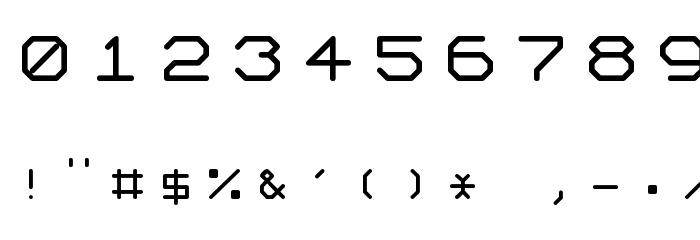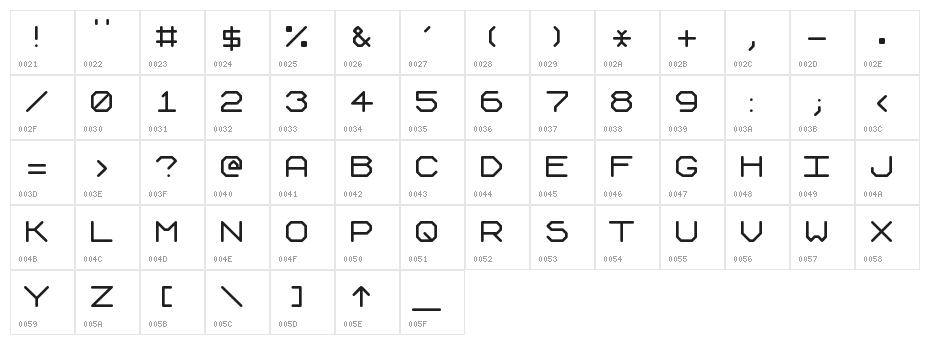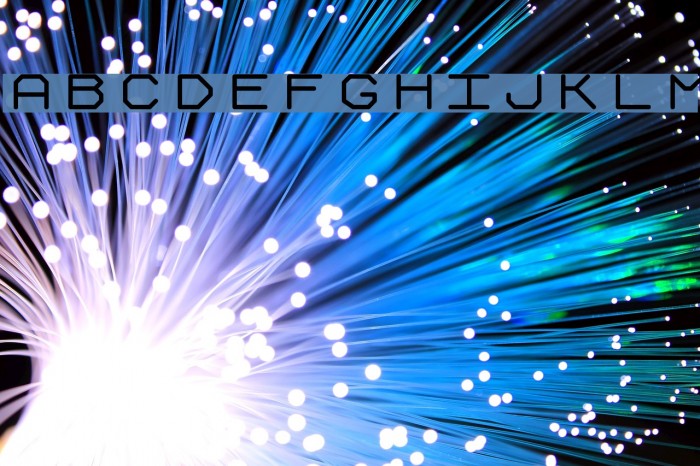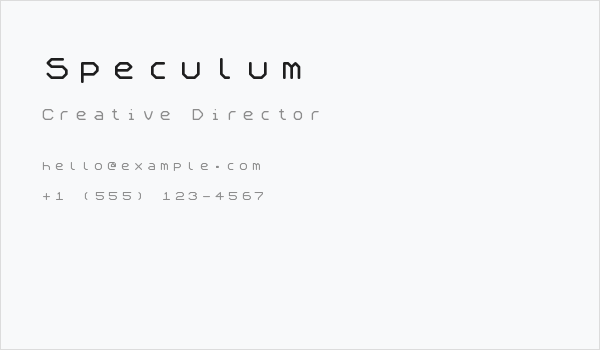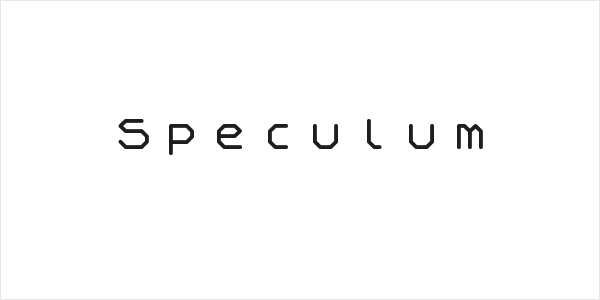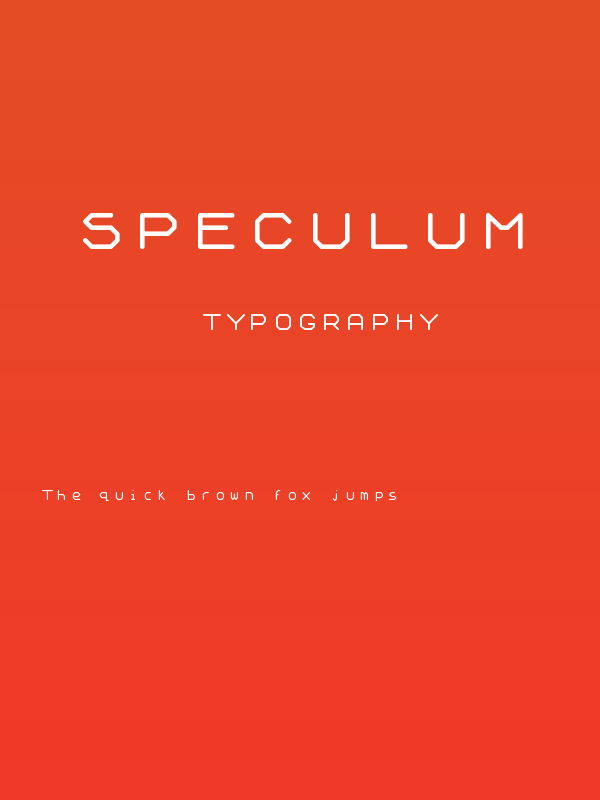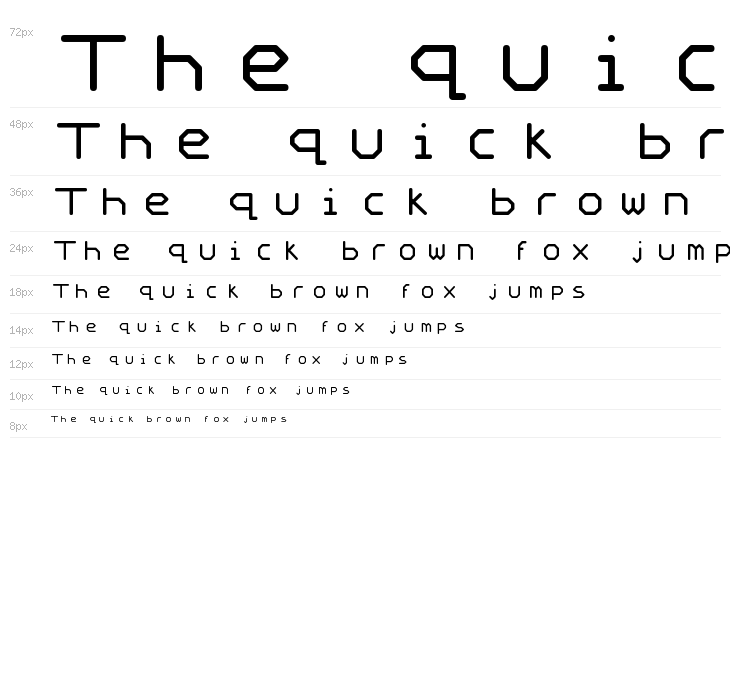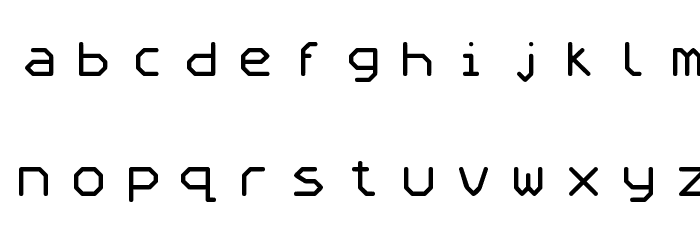
Speculum Font
Speculum Description
This font features a geometric and futuristic design, characterized by its octagonal shapes and clean lines. The uppercase letters are bold and structured, with a uniform thickness that gives a modern and technical appearance. The lowercase letters maintain the geometric theme, offering a consistent look across both cases. Numbers and special characters follow the same design principles, ensuring a cohesive visual style. The font's unique structure makes it stand out, suitable for projects that require a contemporary and innovative touch.
| Proposed Projects | Ideal for technology branding, sci-fi themed designs, video game interfaces, and modern advertising. |